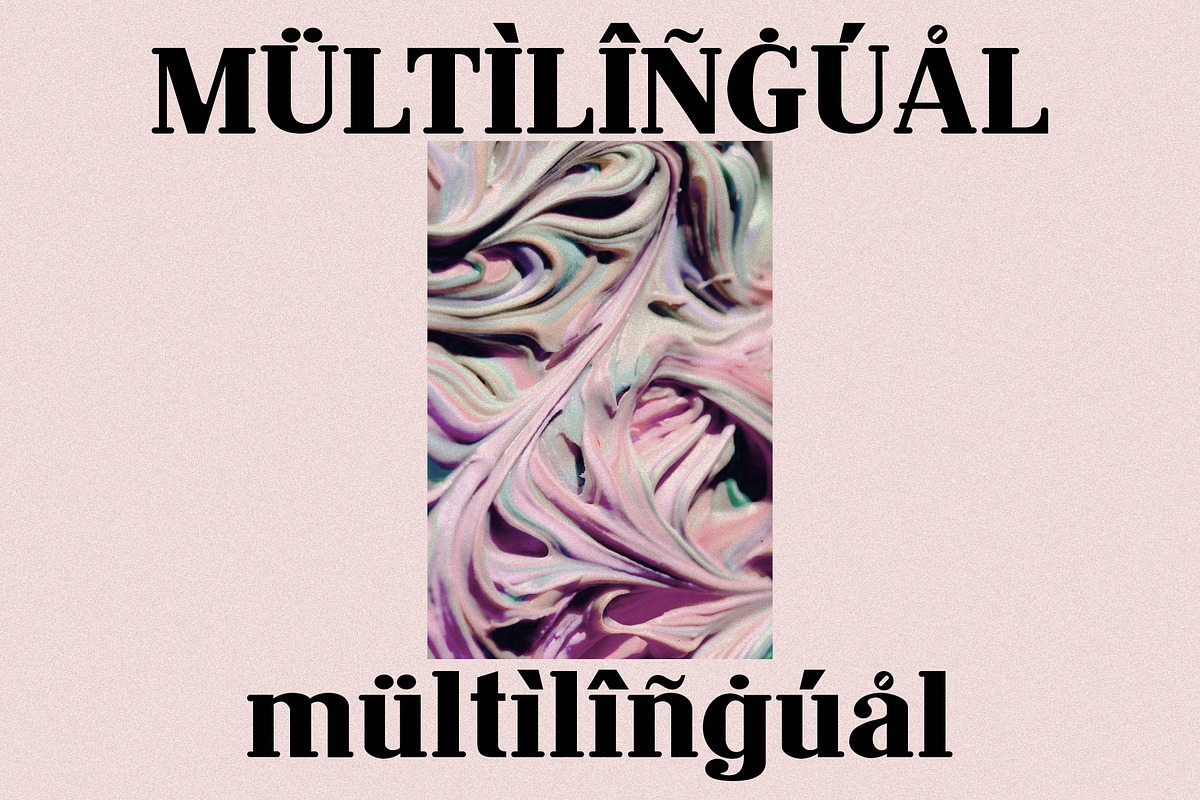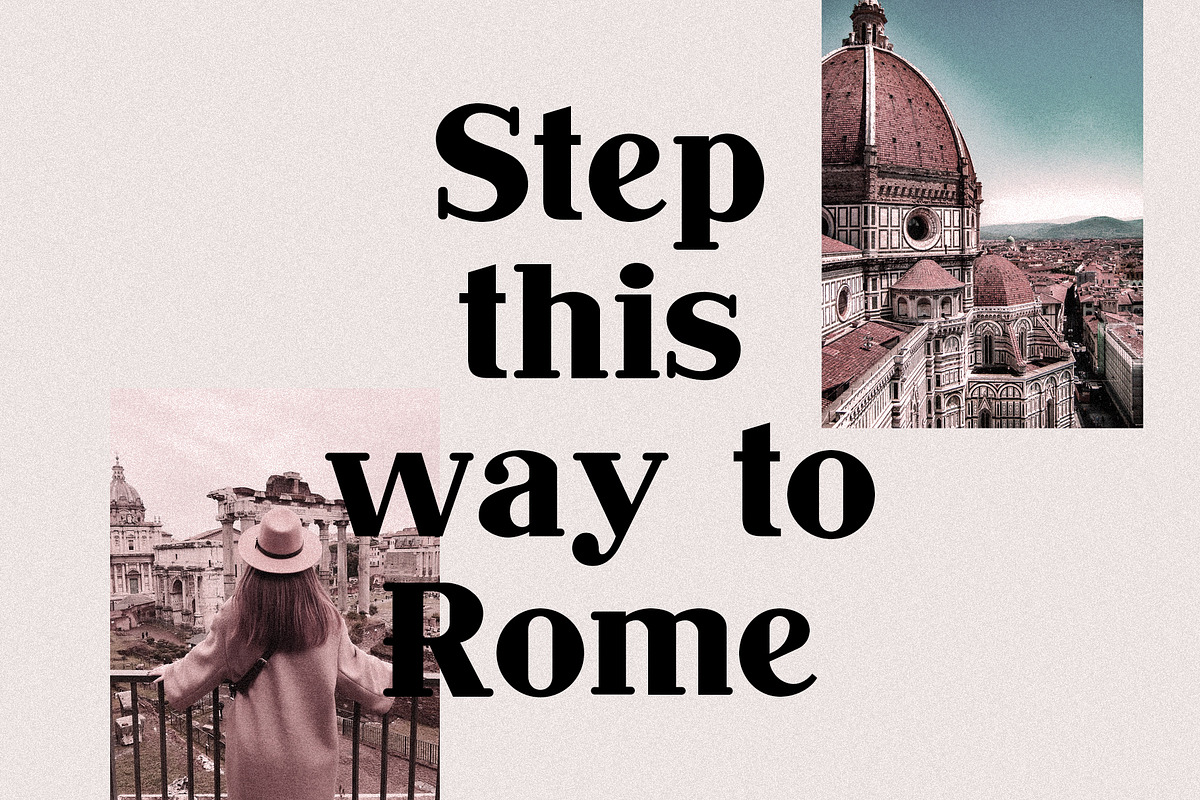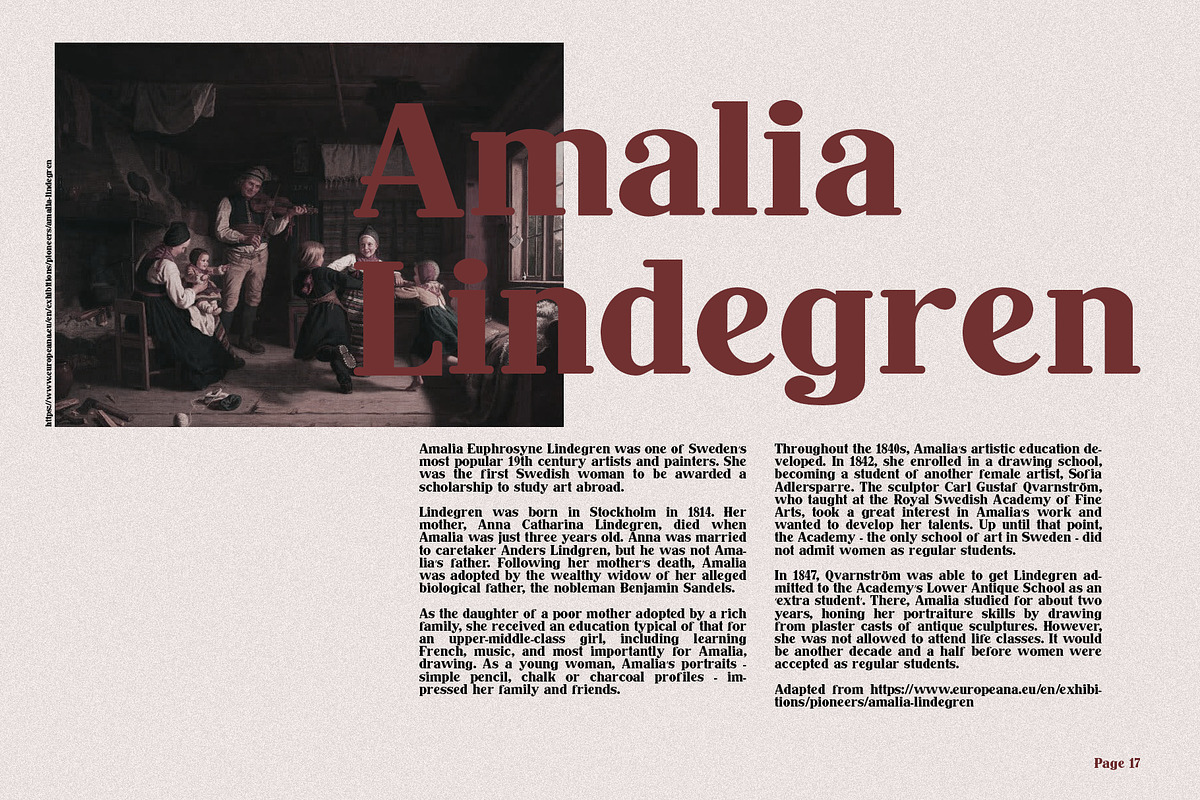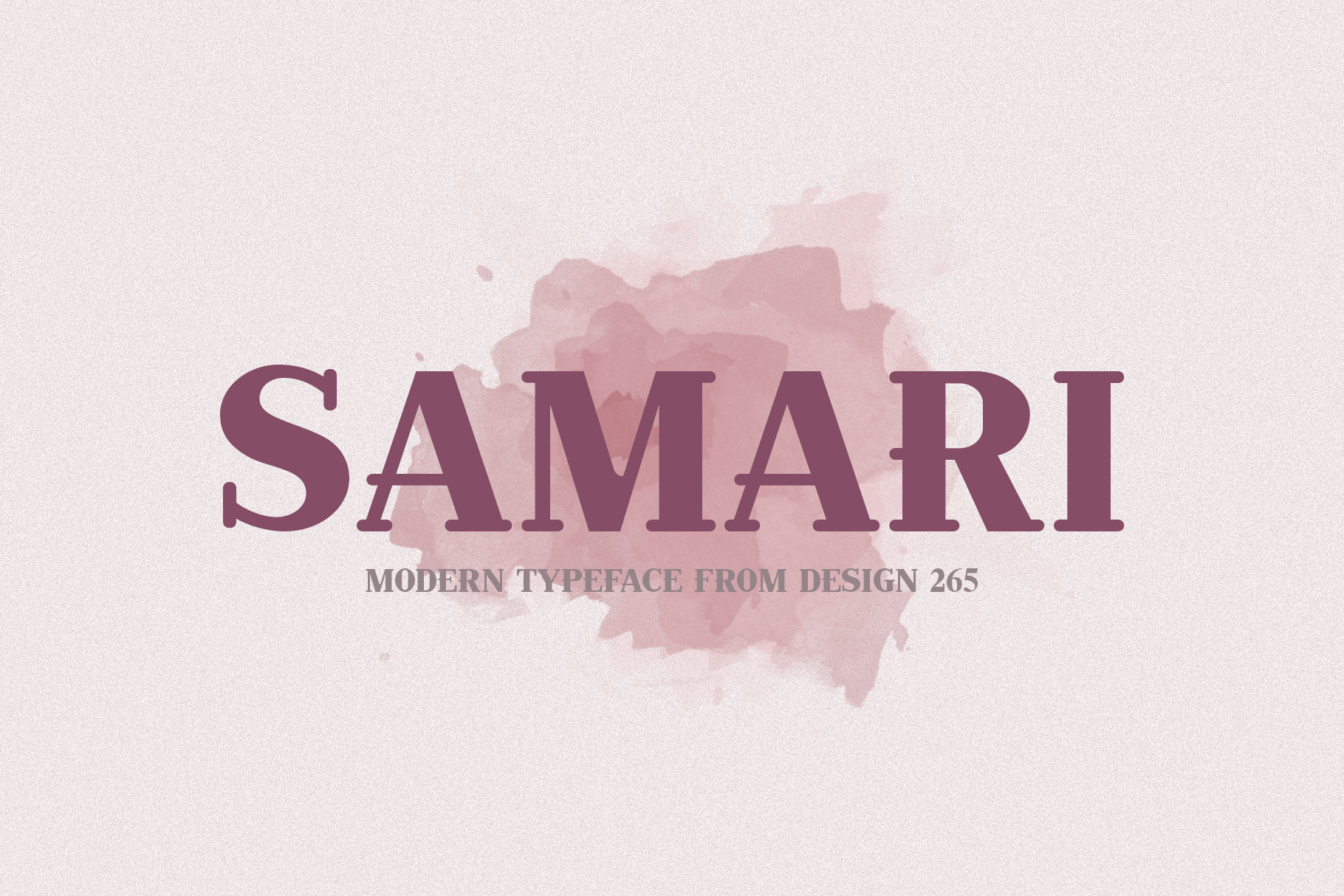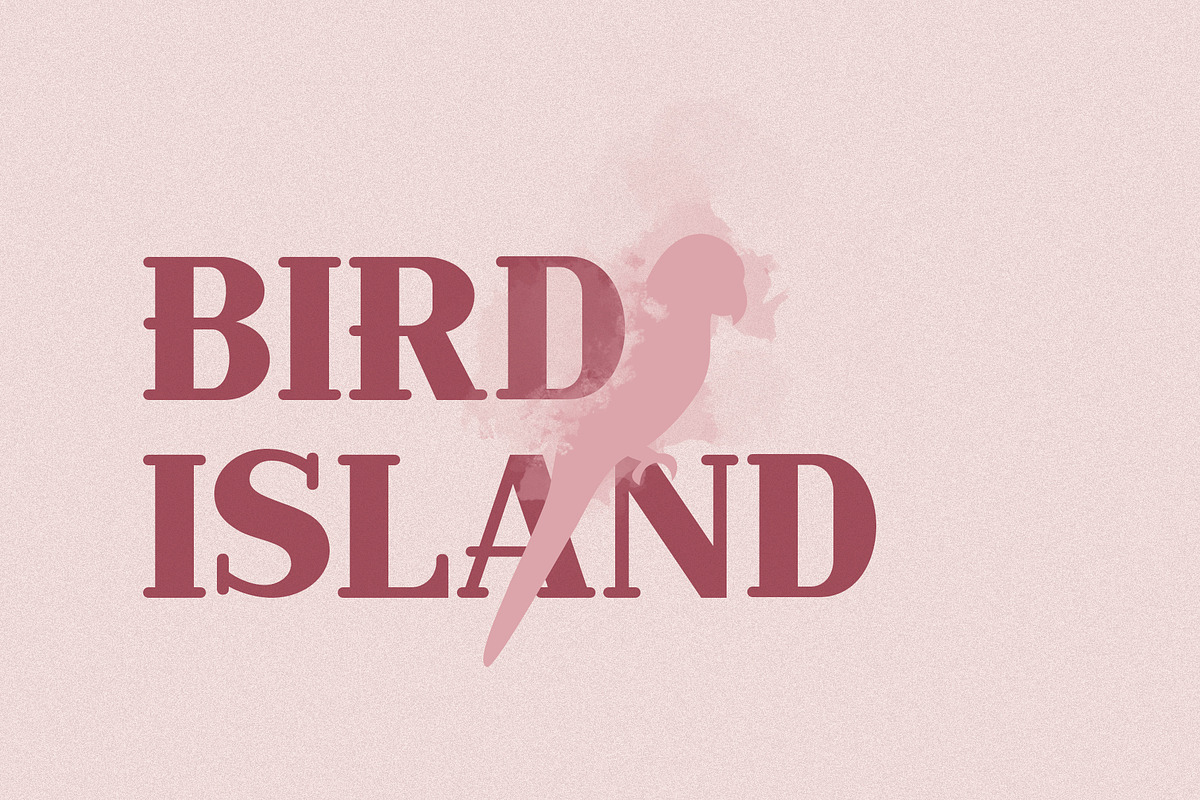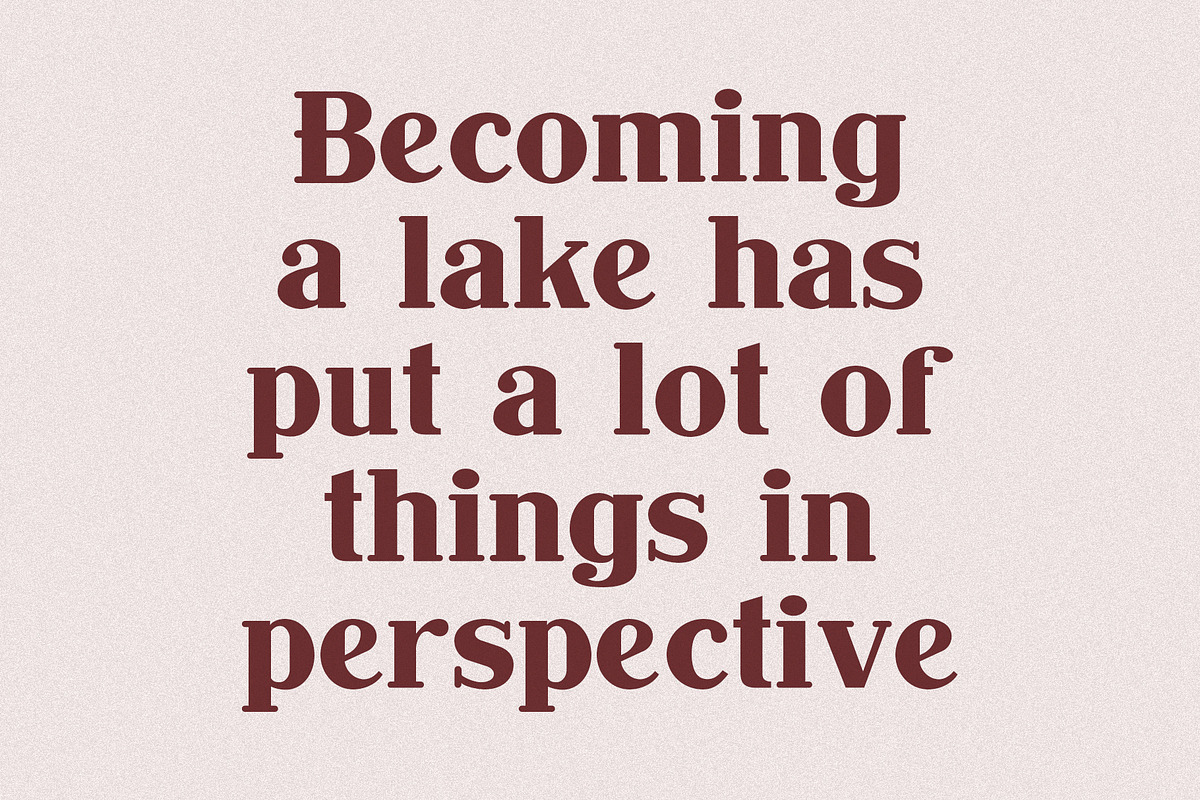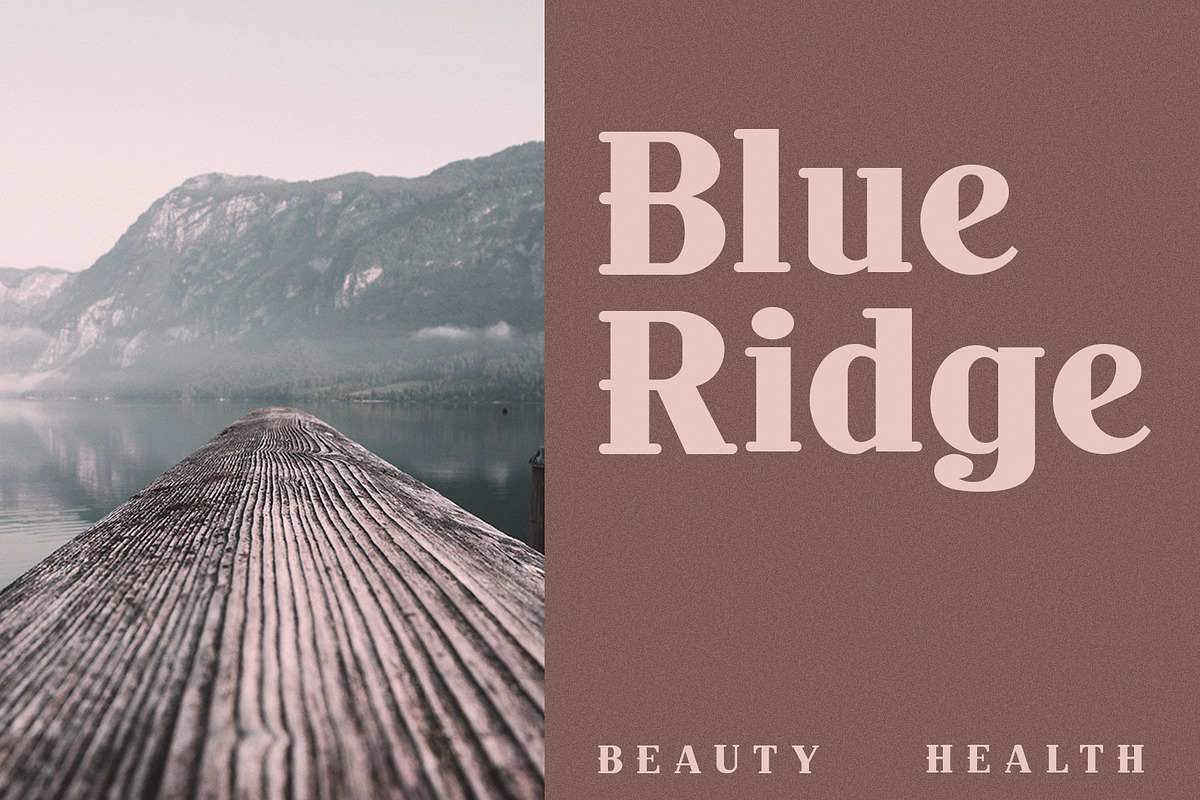
Samari - Modern Serif Font
Samari has that old ancient ruins vibe with rounded serifs for a more modern touch. It comes with multilingual support, uppercase alternates, and ligatures.